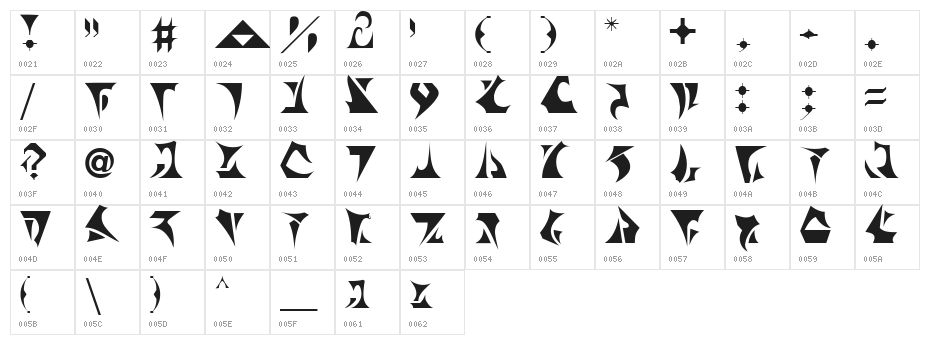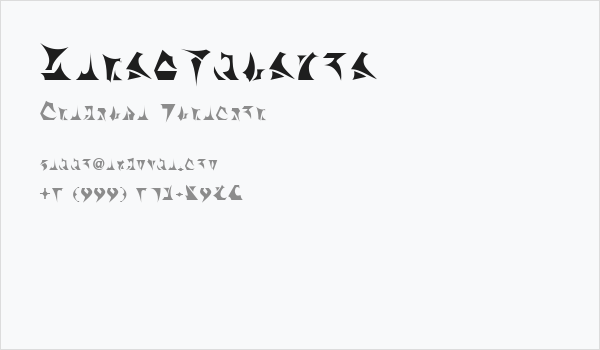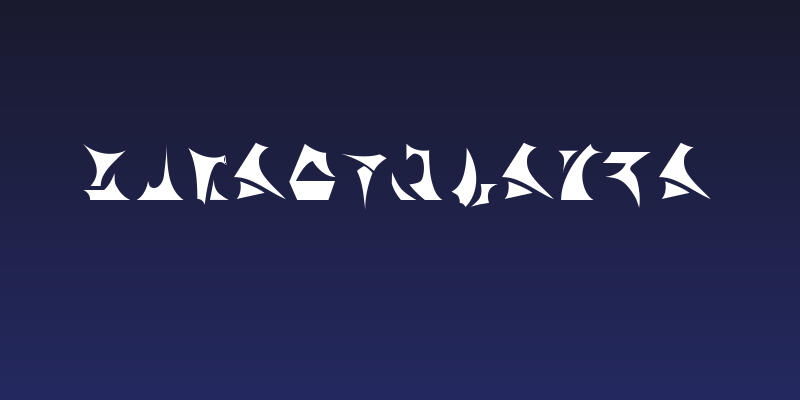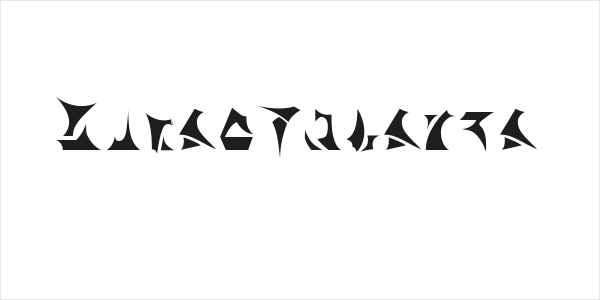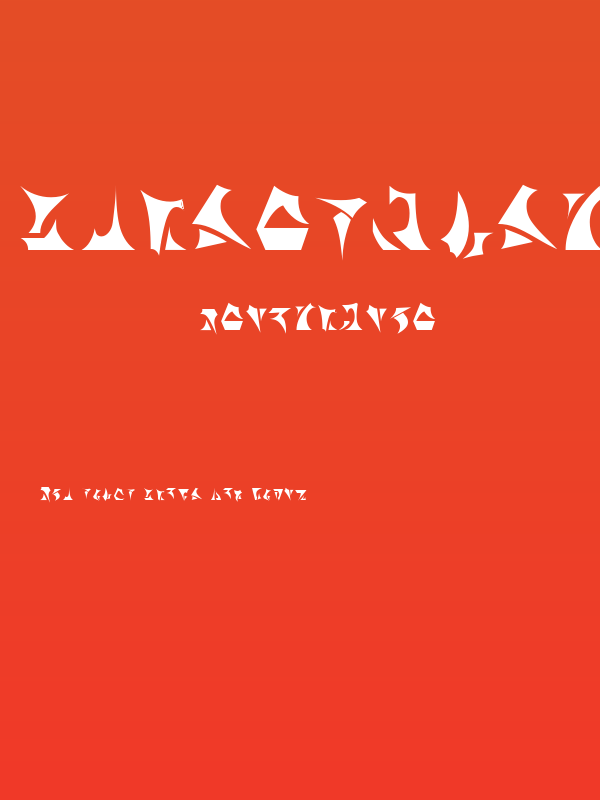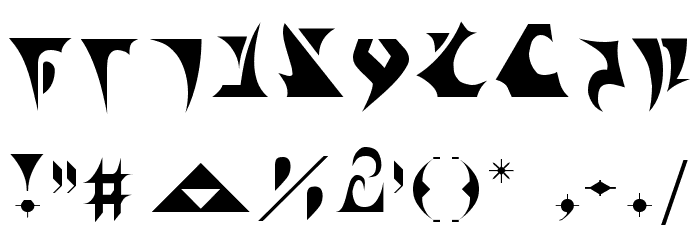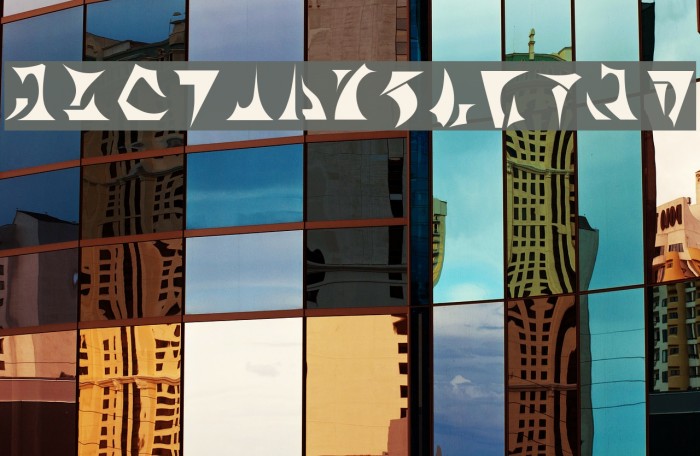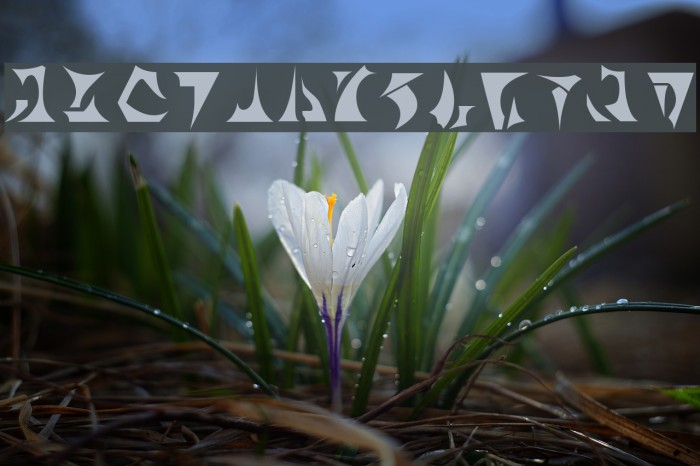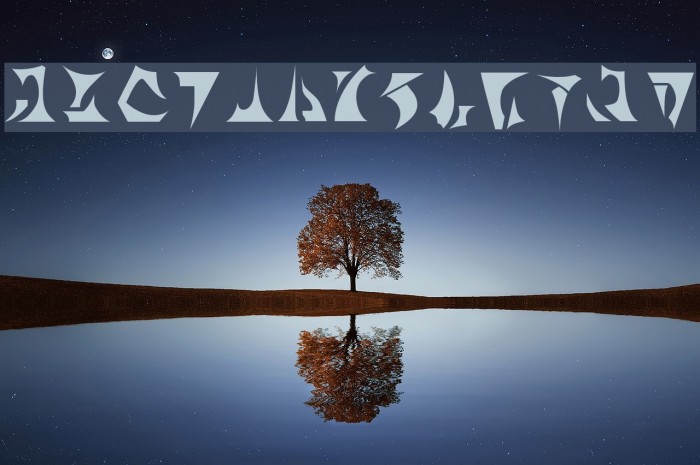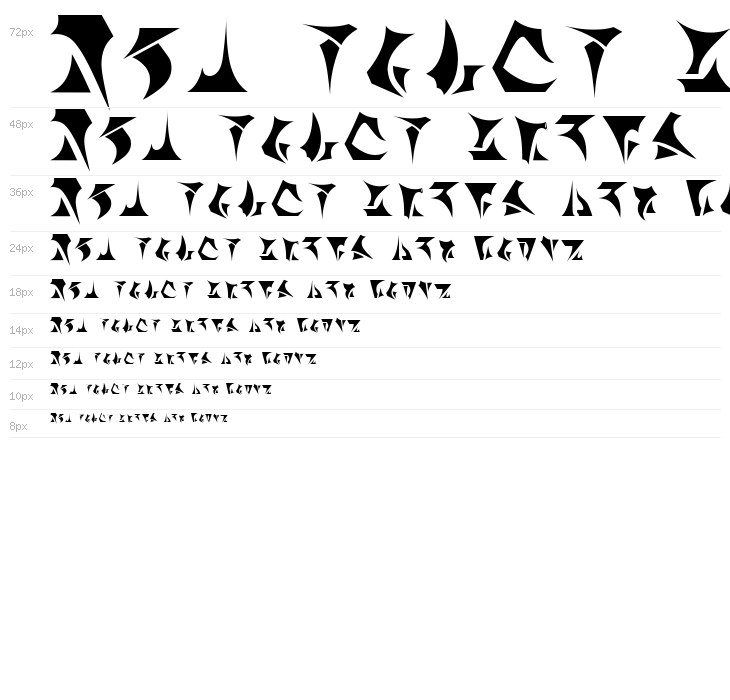
BernyKlingon Font
BernyKlingon Description
This font features a bold, angular design with sharp, pointed edges and a futuristic aesthetic. The characters are highly stylized, resembling a blend of geometric shapes and abstract forms. Each letter has a unique, intricate design that gives the font a distinct, alien-like appearance. The uppercase and lowercase letters maintain a consistent style, with the uppercase being more pronounced. The numbers and special characters follow the same design principles, adding to the overall cohesive look. This font is visually striking and commands attention with its dramatic flair.
| Overall Style | Futuristic, Decorative |
| Proposed Projects | Ideal for sci-fi themed projects, video game titles, movie posters, or any creative work requiring a unique, eye-catching typeface. |